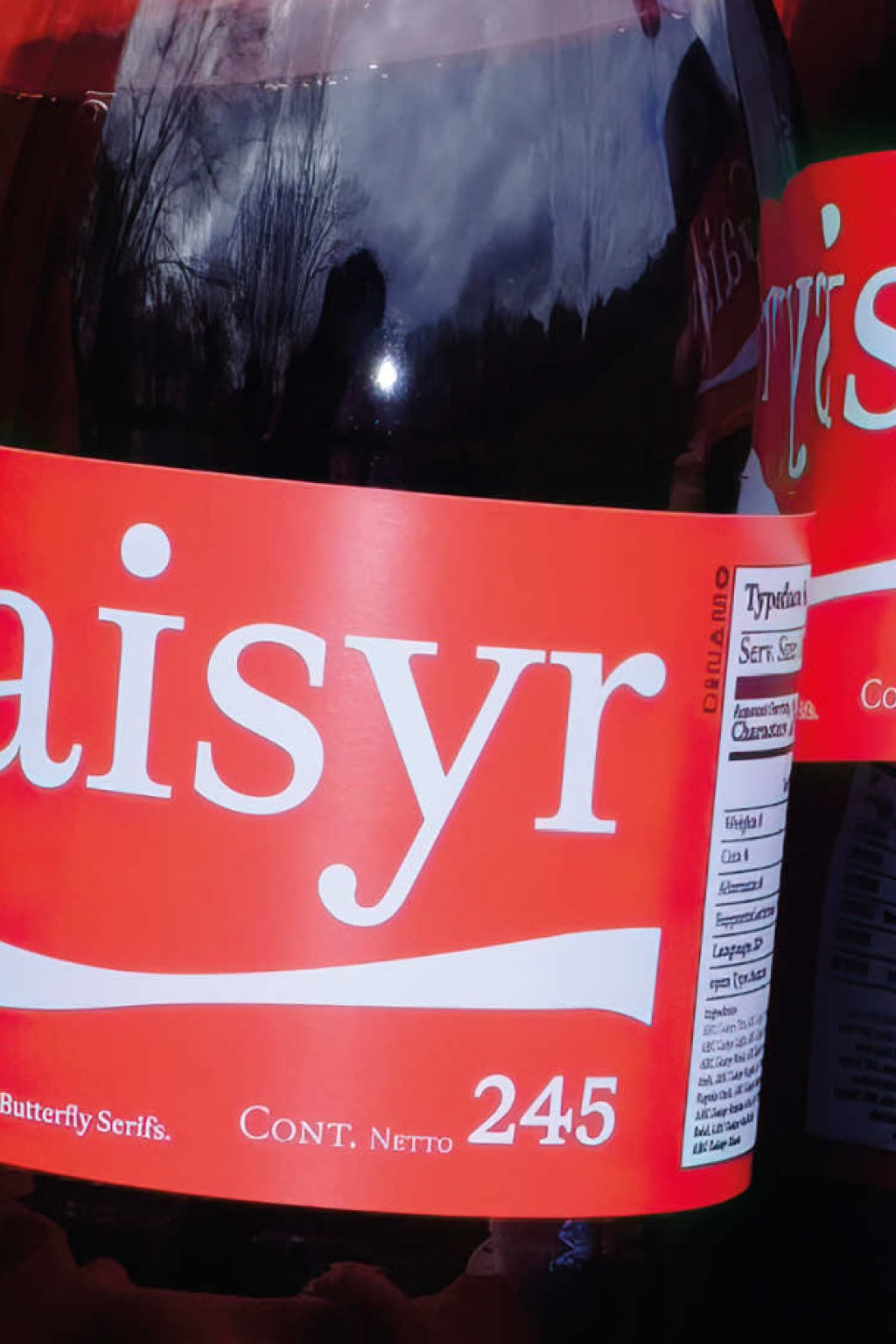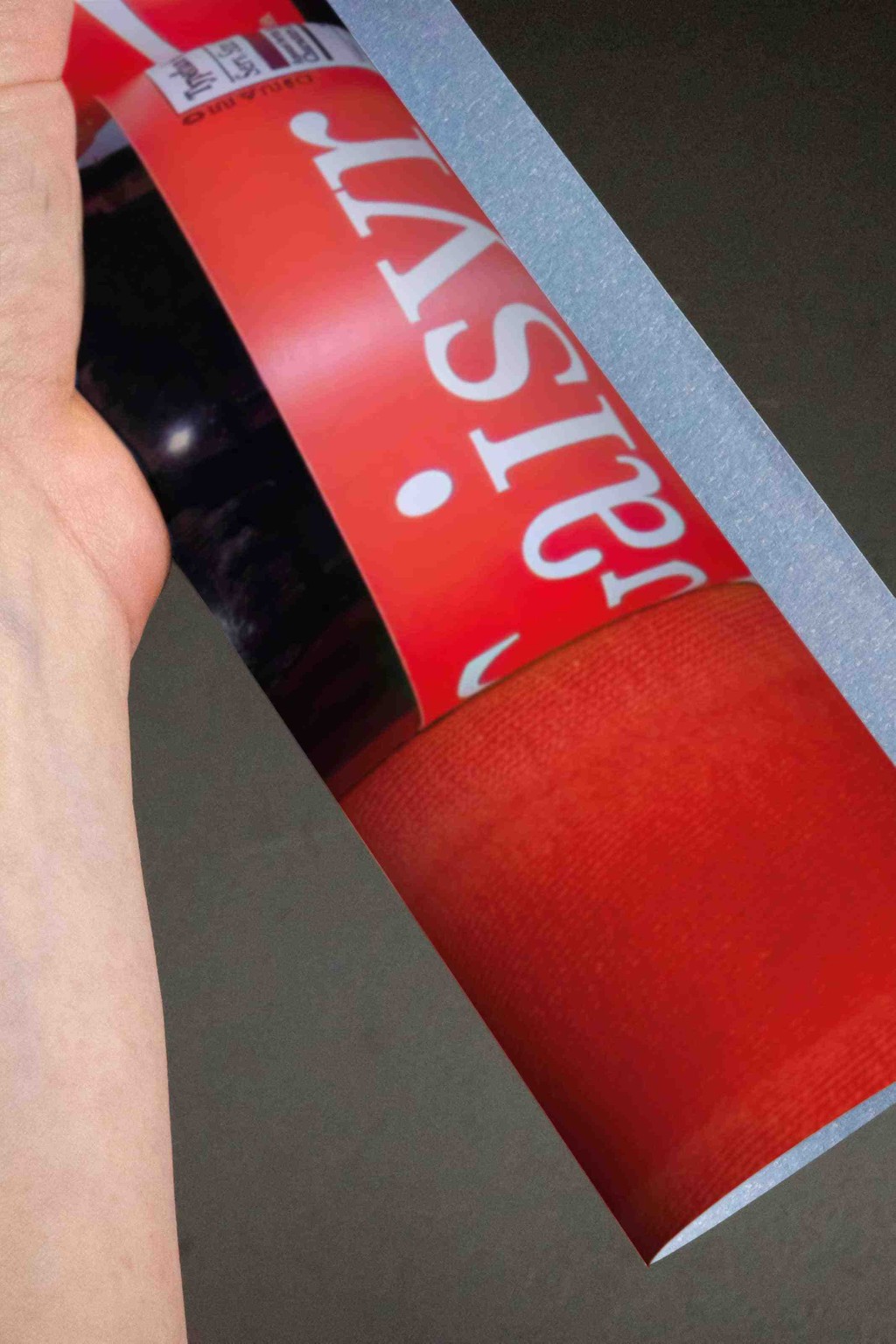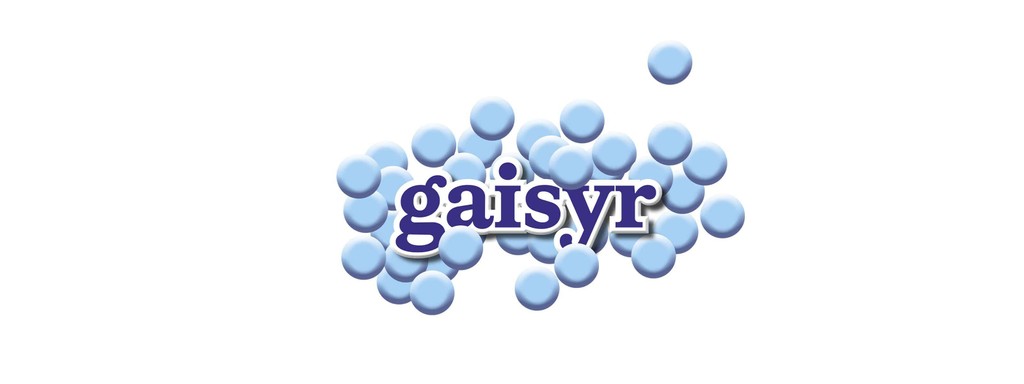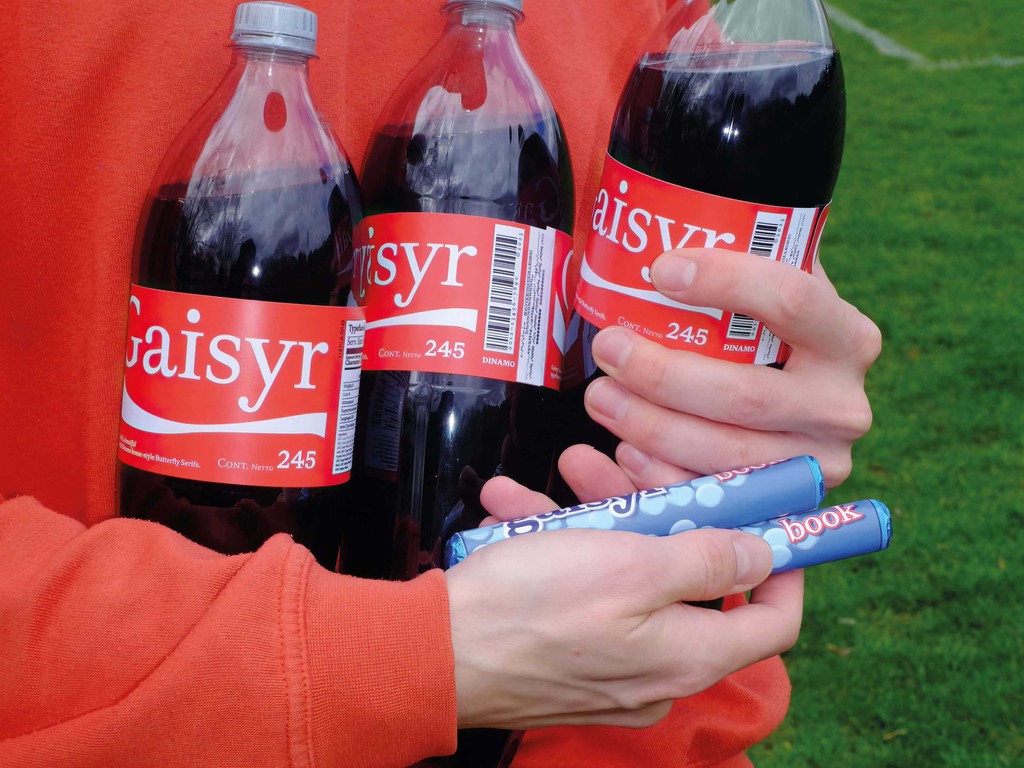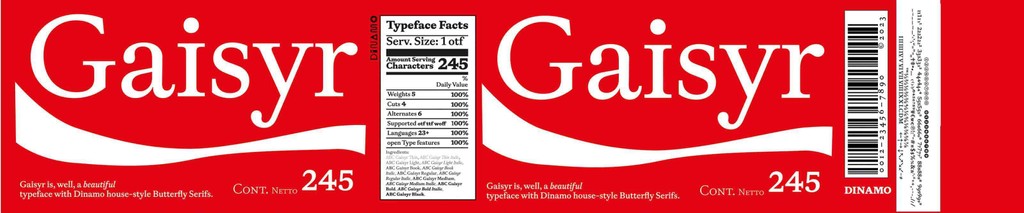
Gaisyr Poster
Imagine the King sitting in his garden, maybe a bit sunburned, surrounded by butterflies and low-hanging citrus fruit.
Poster for Gaisyr, a beautiful serif typeface residing in the neighborhood of Romain Du Roi. The font’s serifs sprout out like a fountain, or, ehem, a geyser (but “gaisyr” is spelled prettier). A1 (59.5 x 84.1 cm), CMYK offset printed by Druckhaus Sportflieger in Berlin.